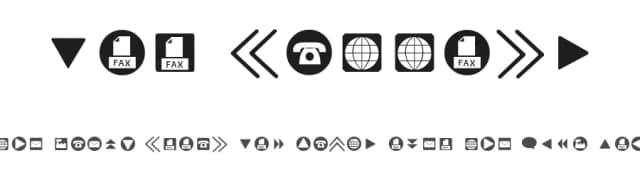
About SimpleDirectionArrows Font
SimpleDirectionArrows is a dingbat font designed by Sba Factory. It includes 221 glyphs, a regular weight, TTF (TrueType) format, and 216 languages. SimpleDirectionArrows is free to download; check the license details on this page before commercial use. Dingbat fonts like SimpleDirectionArrows work best for icons, ornaments, bullet points, and decorative accents.
SimpleDirectionArrows Font is a versatile dingbats font that works for both headings and body text. Pair it with a contrasting sans-serif or serif font to add visual interest and a clear distinction between titles and body copy.
SimpleDirectionArrows Font